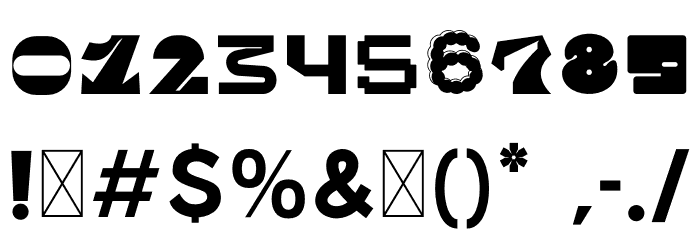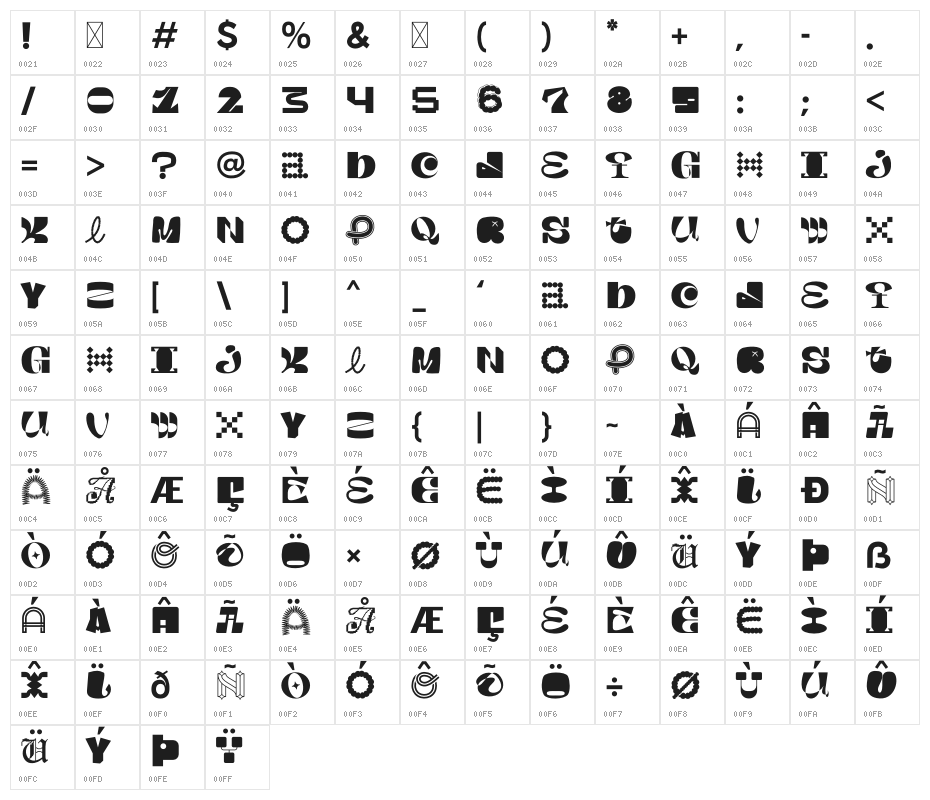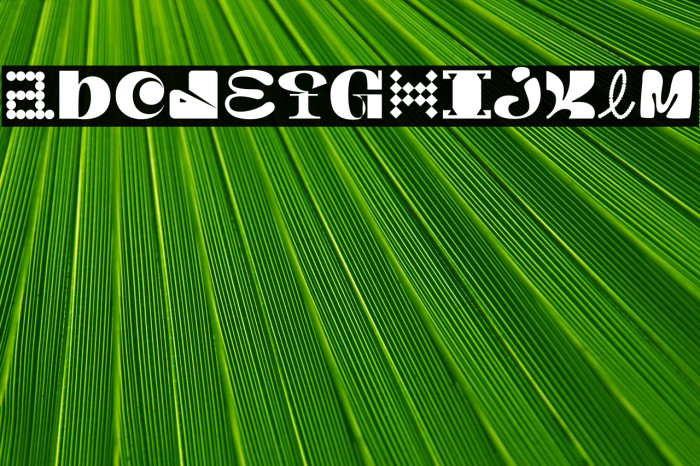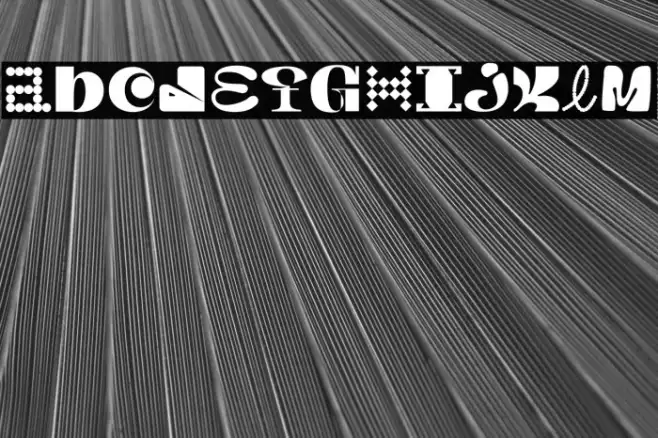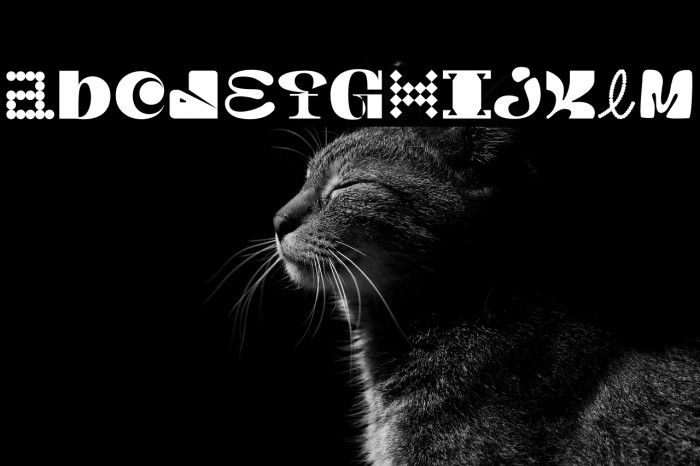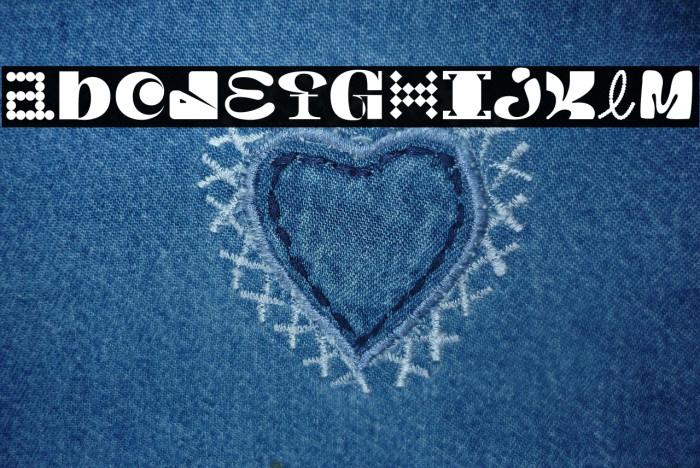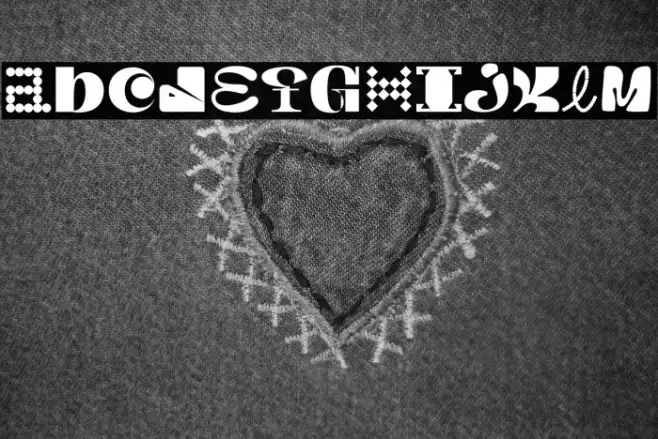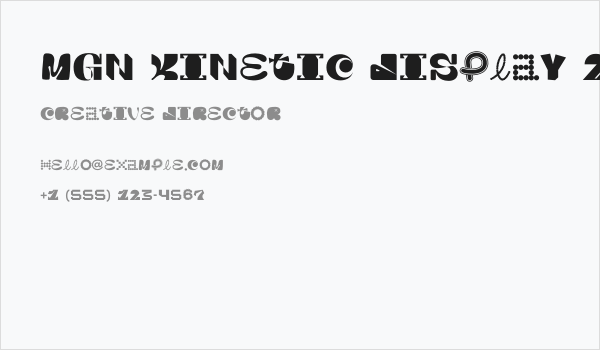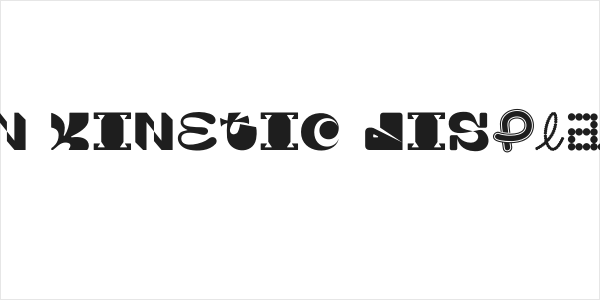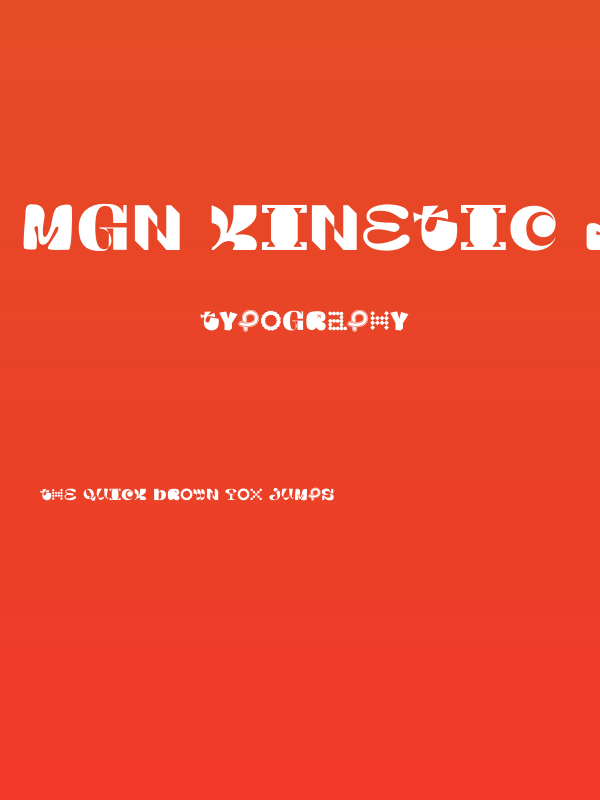
MGN Kinetic Display 2 Font
MGN Kinetic Display 2 Description
This font is a bold and dynamic display typeface that combines geometric shapes with a playful and artistic flair. Each character is uniquely designed with a mix of solid and patterned elements, creating a visually striking and modern appearance. The uppercase and lowercase letters, along with numbers and special characters, exhibit a high level of creativity, making it ideal for attention-grabbing designs. The font's distinctive style is characterized by its experimental forms and varied line weights, which add depth and interest to any project.
| Proposed Projects | Ideal for posters, branding, album covers, and any project requiring a bold, artistic touch. |